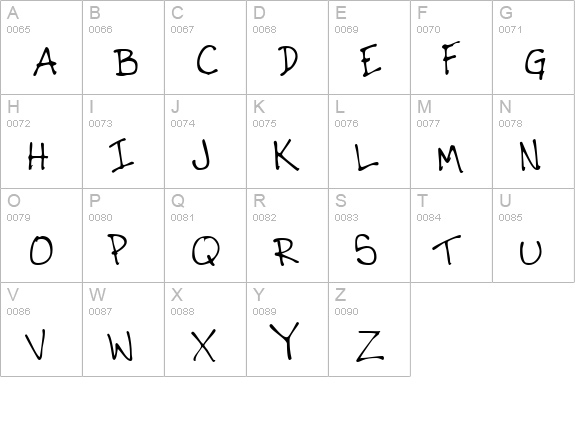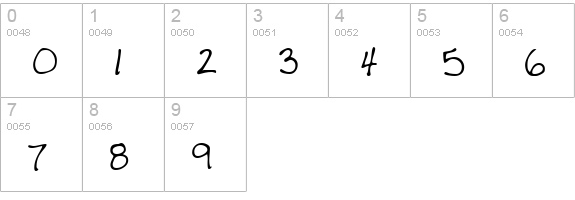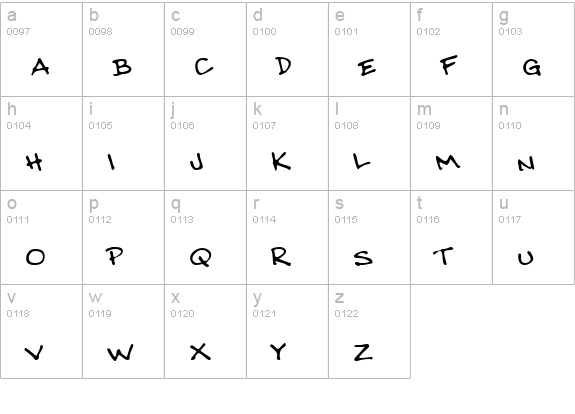
CrosbysHand Regular Font Details
CrosbysHand Regular is the standard, neutral variant in the CrosbysHand typeface family \xE2\x80\x94 well suited to general body text, paragraphs, and standard typographic work.
CrosbysHand Regular font is a charming and elegant typeface that brings a touch of sophistication to any design project. With its delicate curves and clean lines, this font is perfect for adding a touch of class to invitations, logos, and more. The timeless appeal of CrosbysHand Regular makes it a versatile choice for both print and digital applications. Best of all, CrosbysHand Regular font is available for free download at FontsMarket.com. Whether you're a seasoned designer looking to add a new font to your collection or a newcomer in search of the perfect typeface for your project, CrosbysHand Regular is sure to impress. Download it today and elevate your designs with this beautiful and free font.